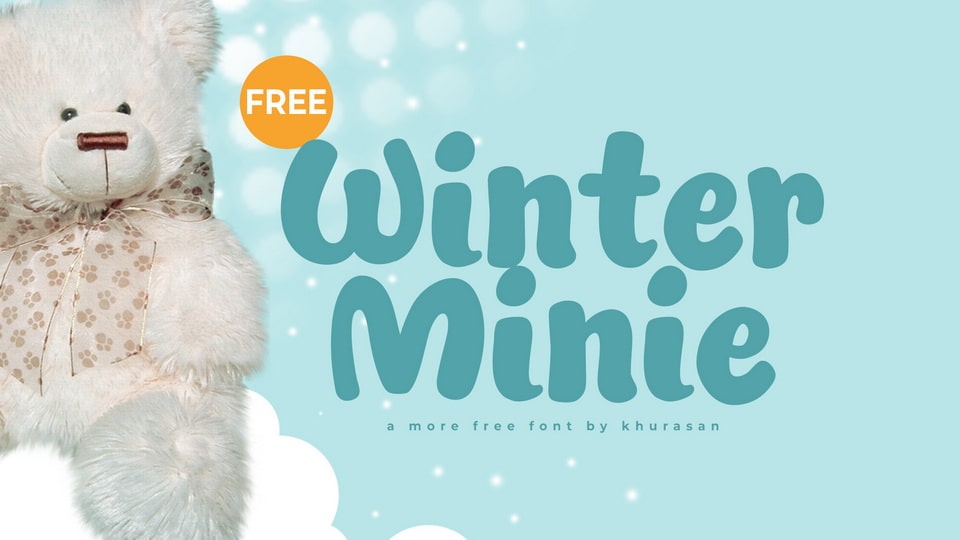
Download Winter Minie font, a playful and cute hand-drawn typeface that radiates personality and charm, perfect for bringing a sense of fun and whimsy to your designs.